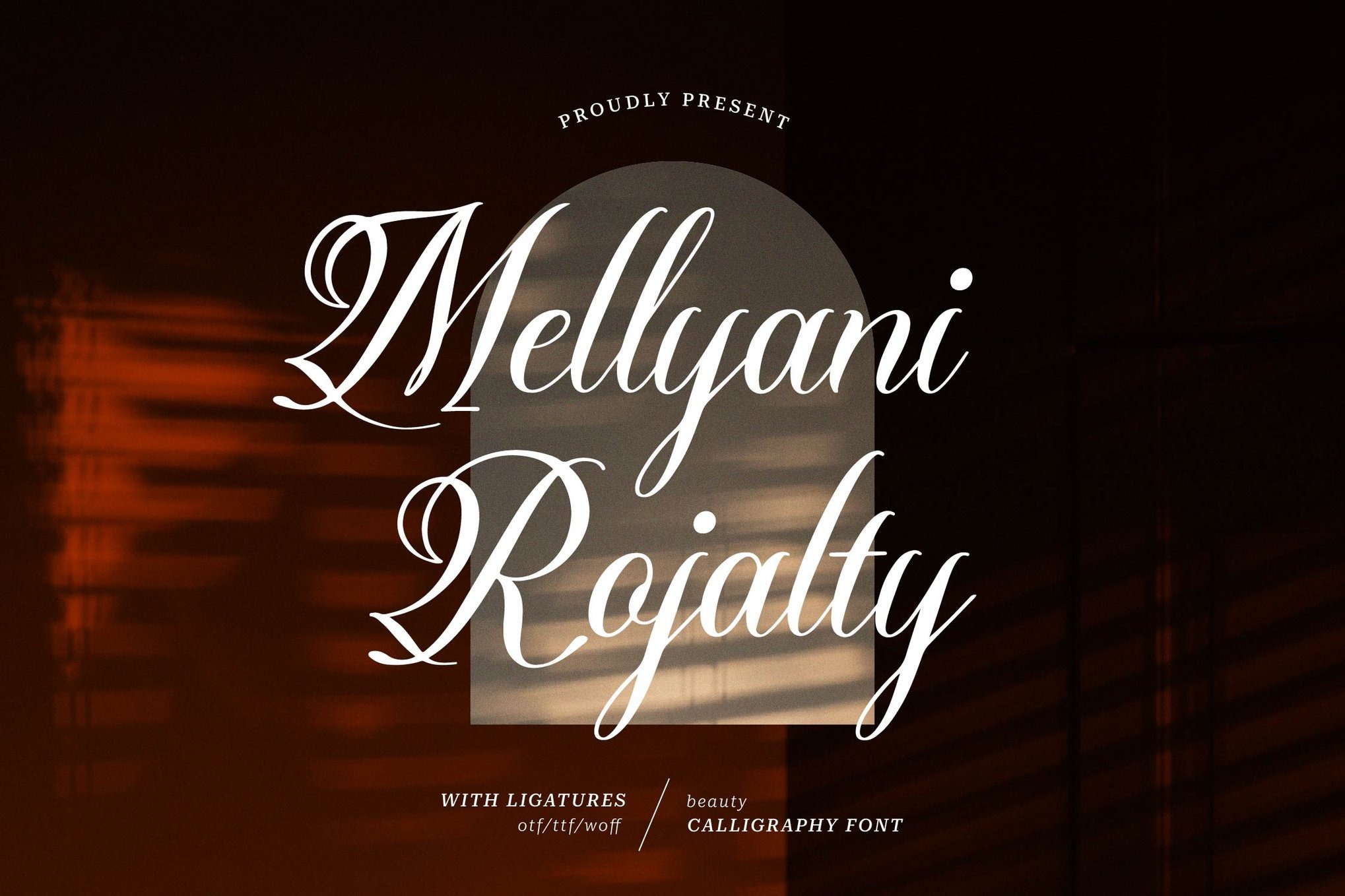
Mellyani Rojalty – Luxury Calligraphy Font
Mellyani Rojalty – Luxury Calligraphy Font is a professionally designed typeface that delivers clarity, structure, and consistent performance across various design applications. Mellyani Rojalty | Calligraphy Script, from Denustudios, suitable for any projects such as: logos, branding projects, homeware designs, product packaging, mugs, quotes, posters, shopping bags, t-shirts, book covers, name card, invitation cards, greeting cards, label, photography, watermark, special events, and all your other lovely projects that need a beautiful calligraphy script taste.